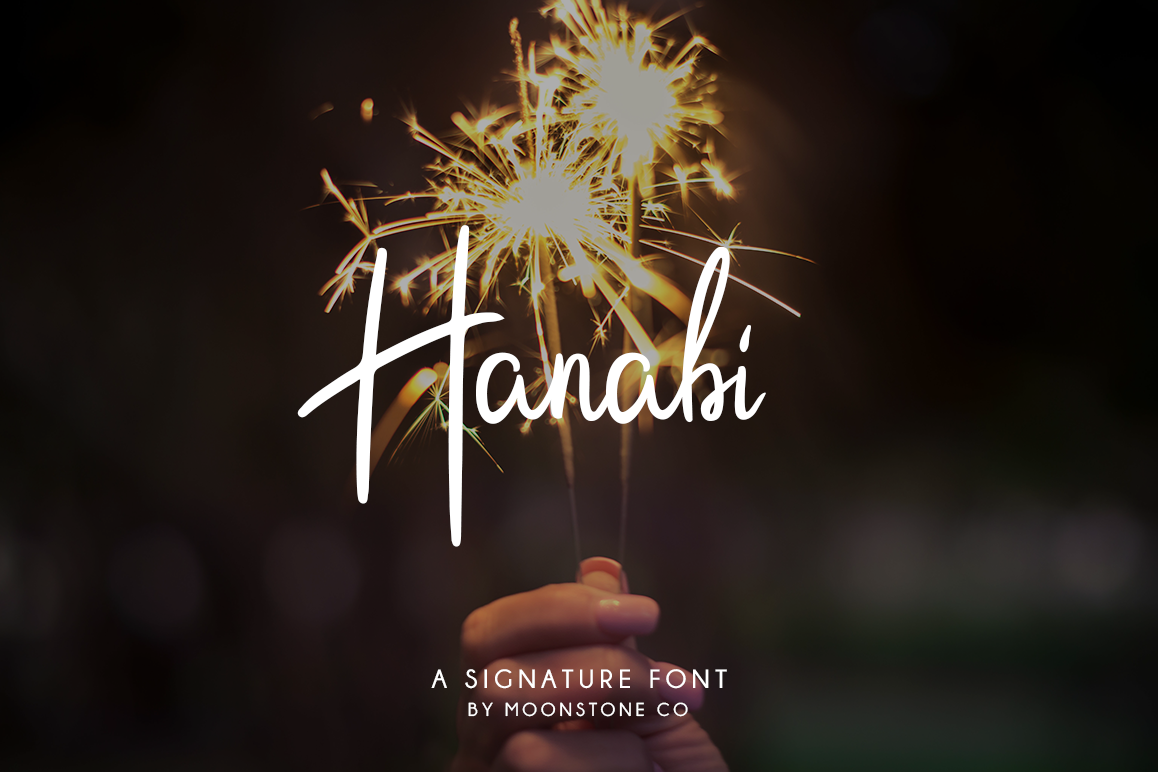
Hanabi Signature Font
Introducing!
Hanabi Signature Font - Very perfect for Logotype,Bussiness Cards, Quotes, Posters and many more!
This would be gorgeous font for your design projects.